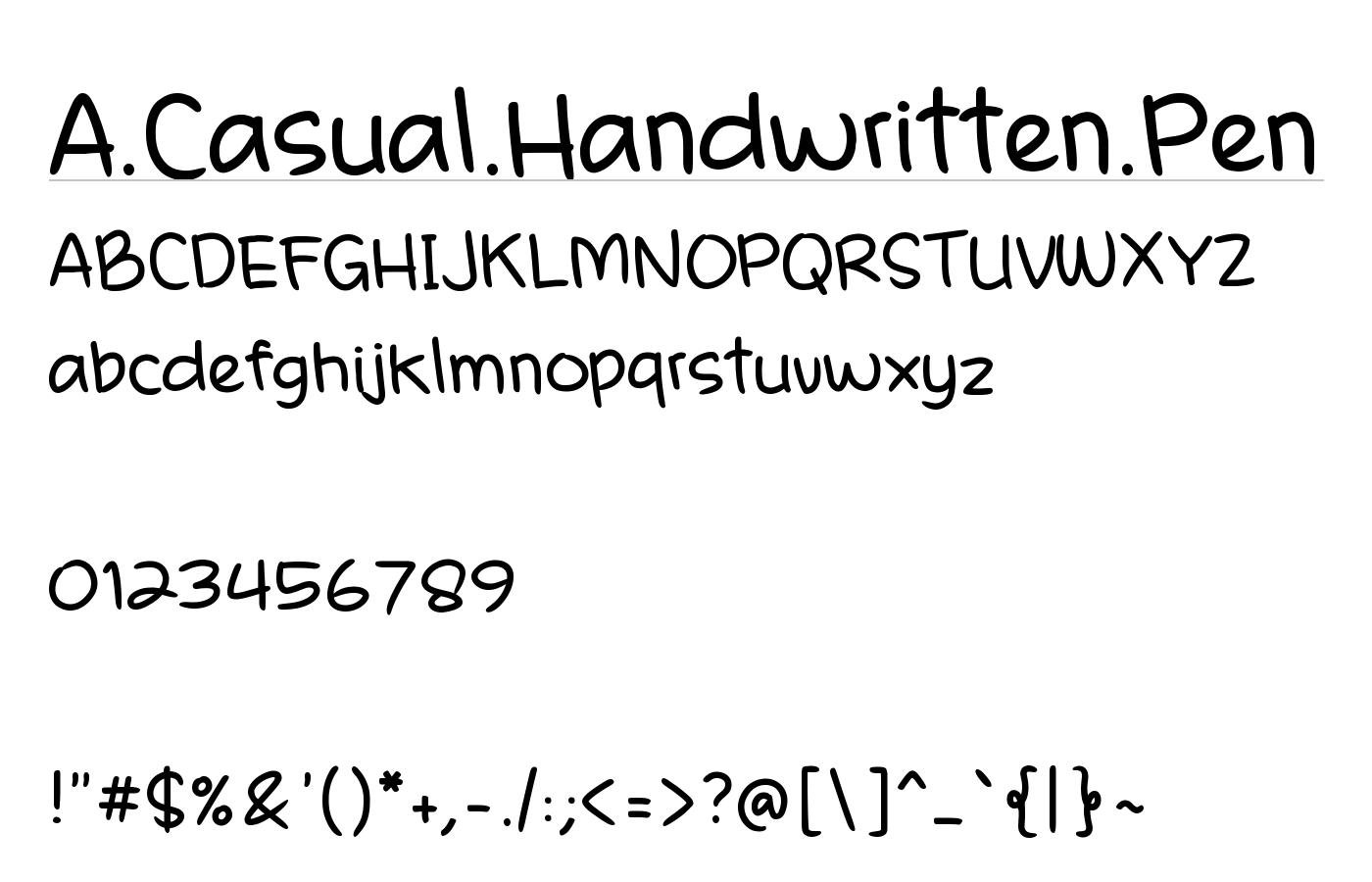
A.Casual.Handwritten.Pen is a playful, friendly handwritten font with a clean and rounded style that mimics natural pen writing. Its casual, approachable look makes it perfect for informal designs, children’s materials, and creative projects that want to convey warmth and personality. This font works well for headlines, invitations, and branding that aims for a personal touch without sacrificing readability.
A.Casual.Handwritten.Pen Font